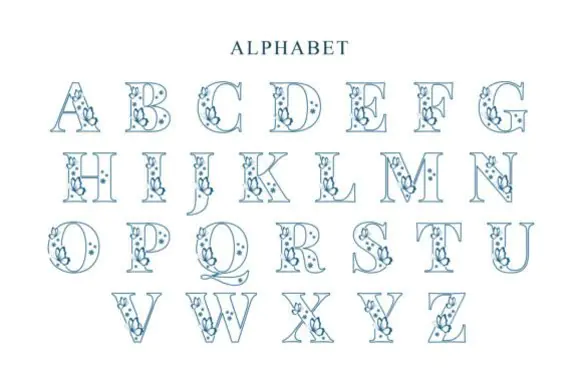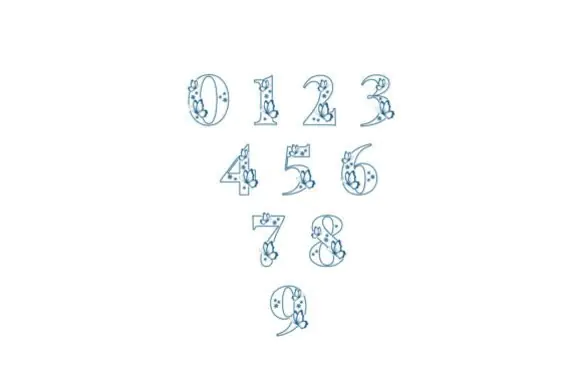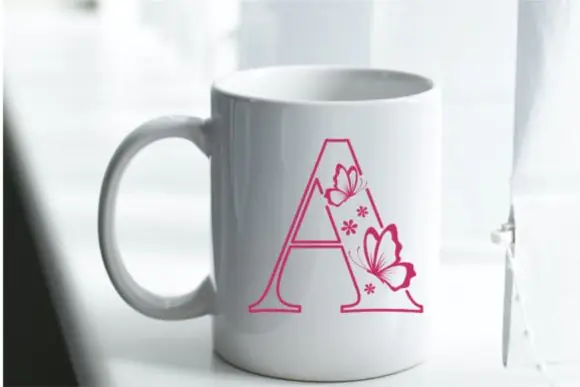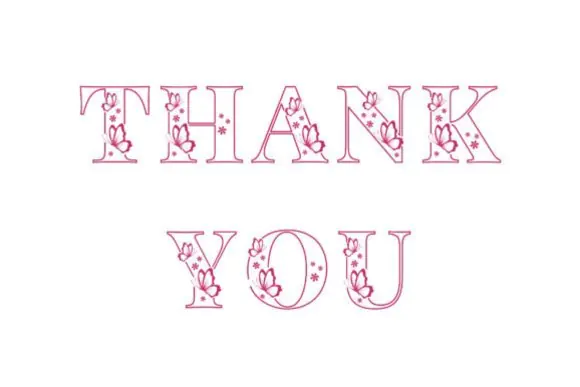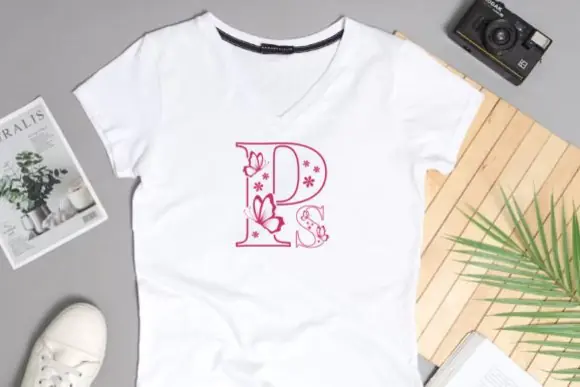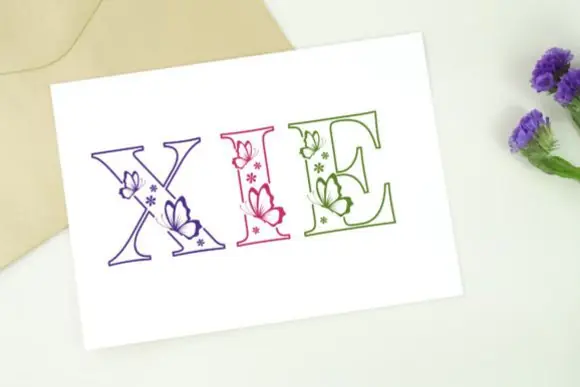
Create elegant, charming, and beautifully decorated designs with Butterfly Inside Font, a lovely decorative outline typeface featuring graceful ornamental details. With its authentic artistic feel and soft decorative style, this font is perfect for projects that need a feminine, romantic, creative, and eye-catching appearance.
Butterfly Inside Font is ideal for designers, crafters, stationery creators, small business owners, invitation makers, social media designers, and digital product sellers who want a graceful display font for beautiful creative projects. It works wonderfully for stationery art, greeting cards, thank-you cards, invitations, social media posts, wall art, stickers, labels, packaging, printable crafts, quote designs, planner pages, and personalized gift products.
Its butterfly-inspired decorative look brings a light, elegant, and whimsical touch to typography, making your designs feel more artistic and memorable. Whether you are creating a cute greeting card, feminine brand graphic, romantic invitation, stylish social media quote, or printable wall art, Butterfly Inside Font adds beauty and personality to your layout.
This font is especially suitable for spring designs, butterfly-themed artwork, women-focused branding, handmade crafts, romantic stationery, and elegant printable projects.